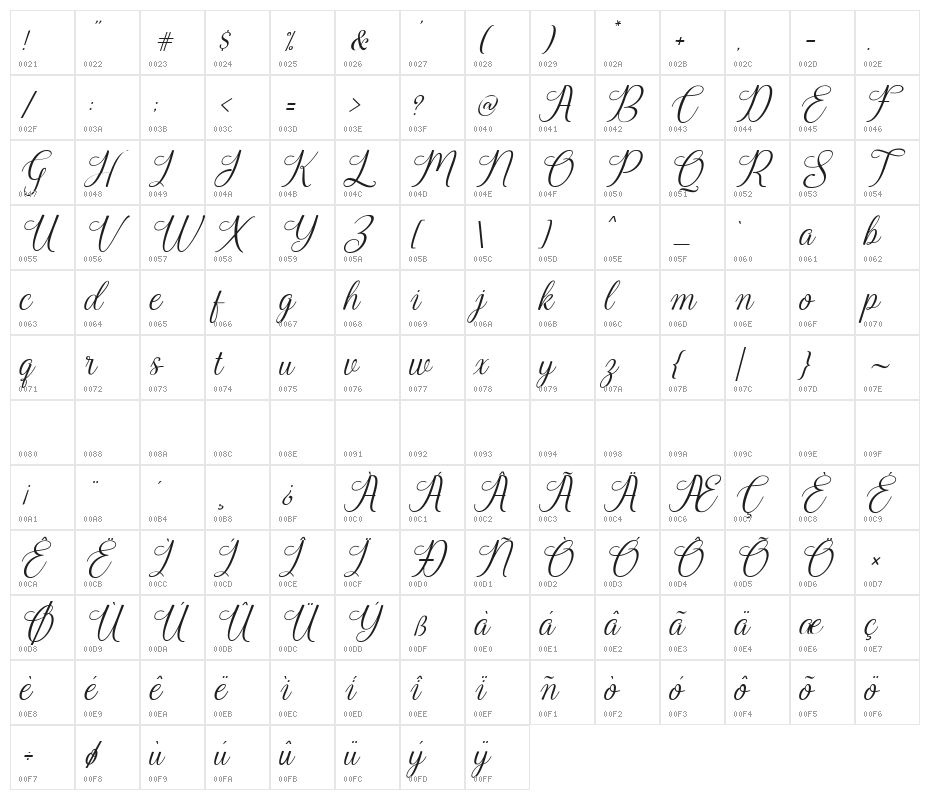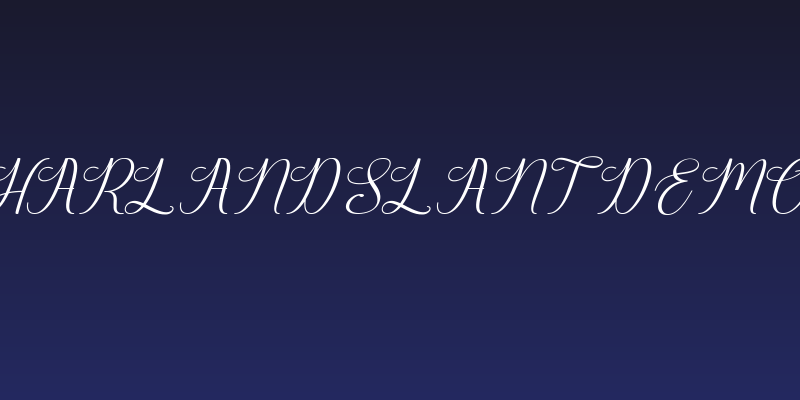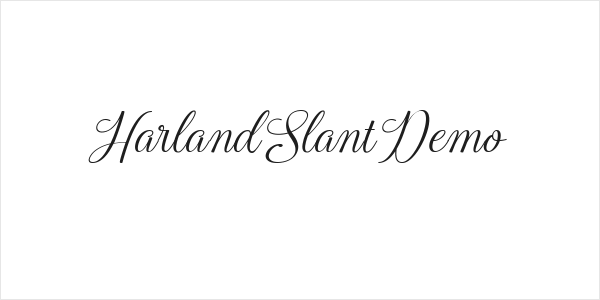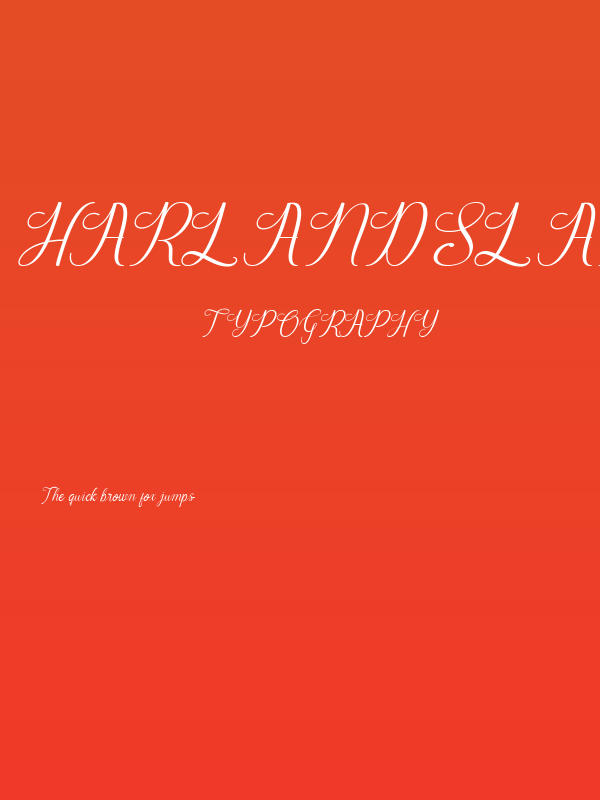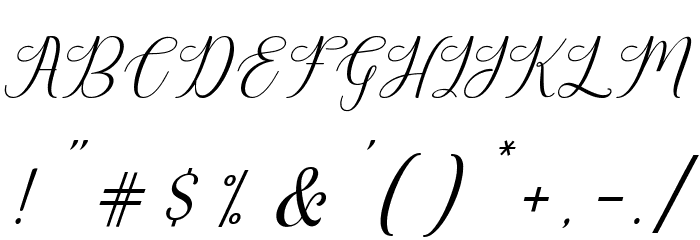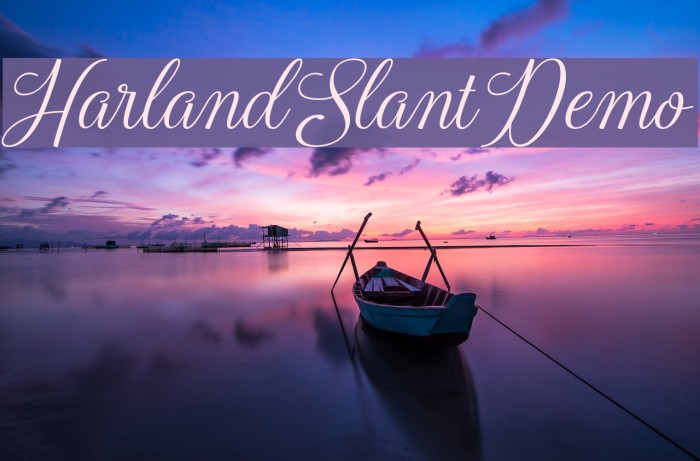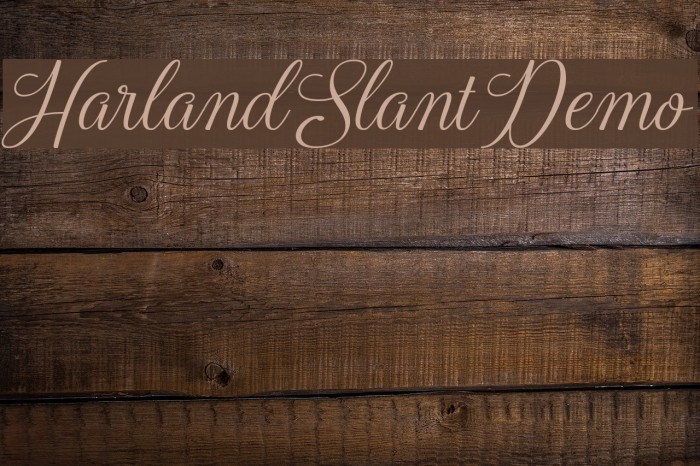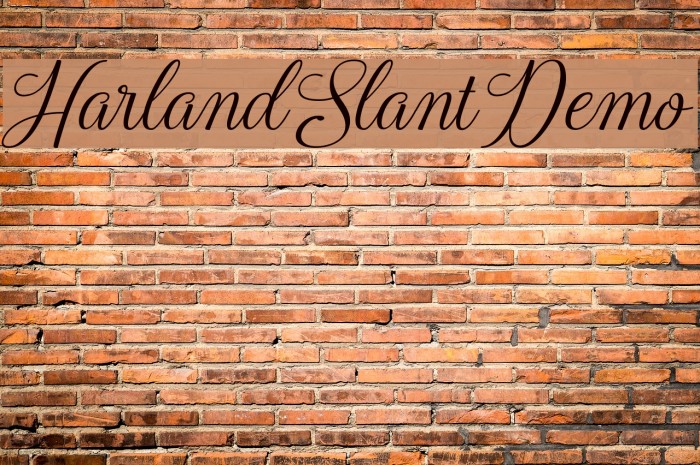
HarlandSlantDemo Font
This elegant script font features a flowing, cursive style with a pronounced slant, giving it a sophisticated and graceful appearance. The uppercase letters are characterized by their sweeping curves and delicate loops, while the lowercase letters maintain a consistent rhythm with smooth connections. The font exhibits a high contrast in stroke thickness, enhancing its refined and stylish look. The special characters are designed to complement the overall aesthetic, maintaining the same fluidity and elegance. This font is ideal for projects that require a touch of class and sophistication.
| Proposed Projects | Ideal for wedding invitations, elegant branding, luxury packaging, and high-end editorial design. |